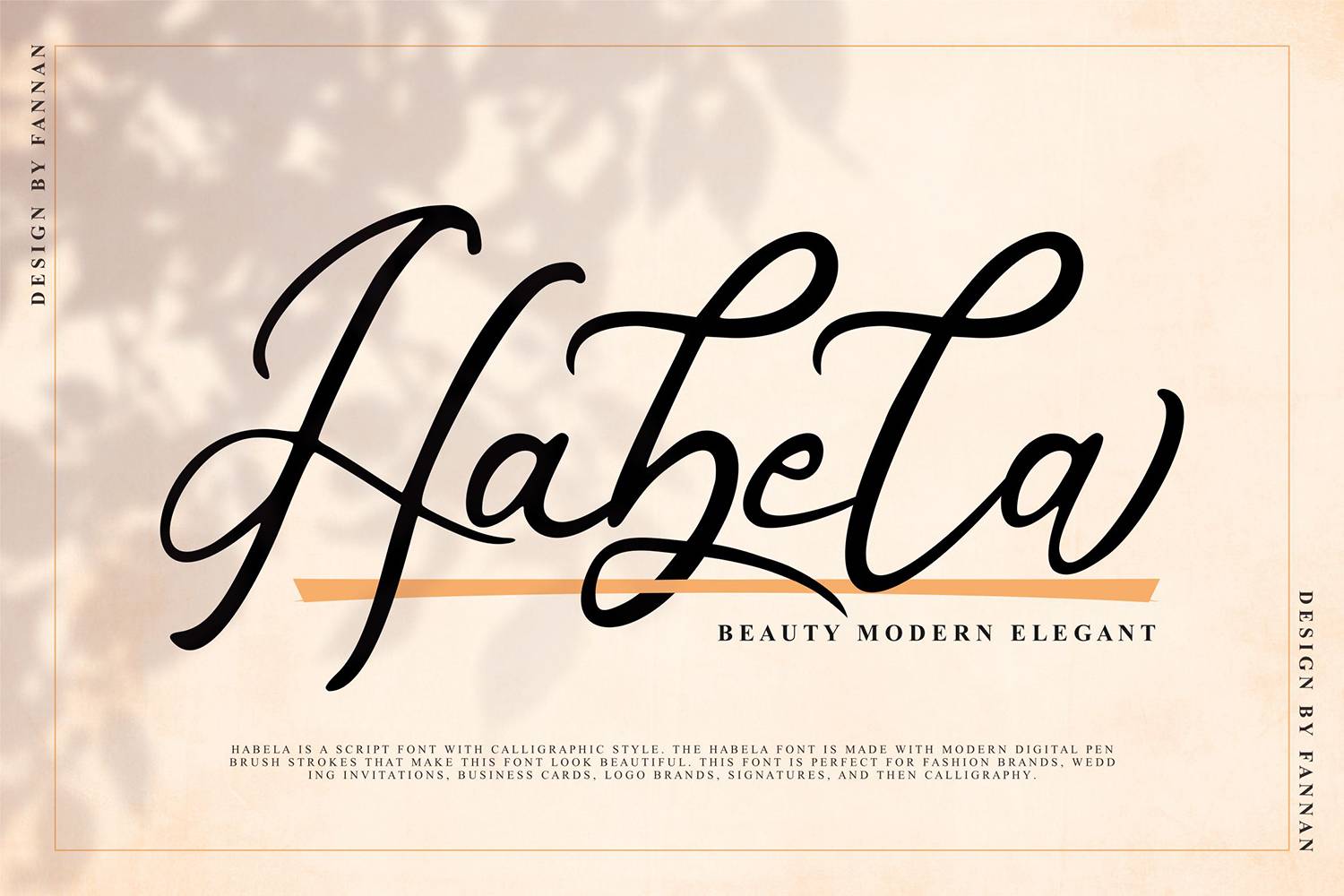
Habela is an elegant, script-style font featuring fluid, delicate strokes with a refined calligraphic touch. Its high contrast and graceful flourish details make it perfect for sophisticated branding, invitations, and stylish headlines. This font conveys a sense of luxury and charm, ideal for projects that seek a personal and artistic feel.
Habela Font
About Habela Font
| Font family | Habela Font |
| Designer | Fannan Studio |